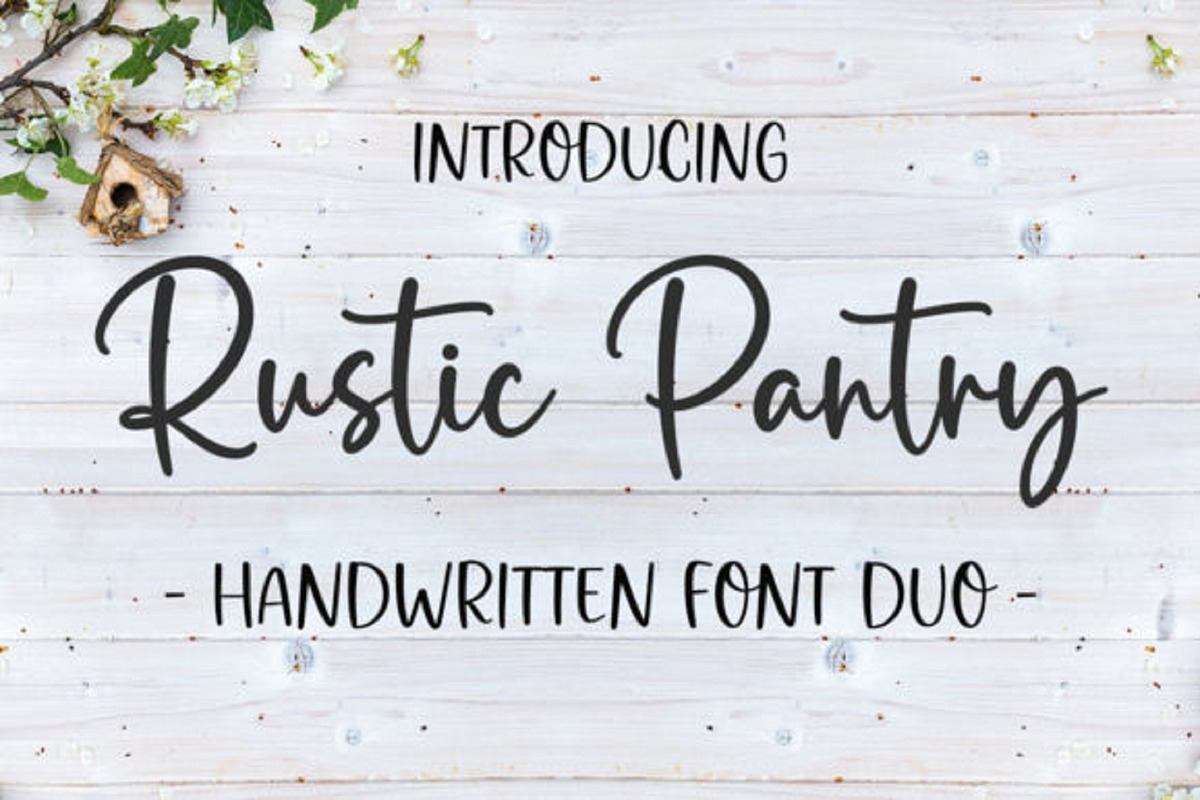
Charming, handcrafted, and full of cozy character, Rustic Pantry Font Free Download is a delightful handwritten typeface inspired by farmhouse labels, organic packaging, and rustic kitchen vibes. Perfect for product branding, recipe books, signage, crafts, and social media graphics, this font brings warmth and a homemade touch to any design.
With its casual strokes and slightly uneven lines, Rustic Pantry feels authentic and approachable—ideal for projects that need a friendly, down-to-earth aesthetic. It pairs beautifully with vintage textures, soft color palettes, and DIY-inspired visuals.